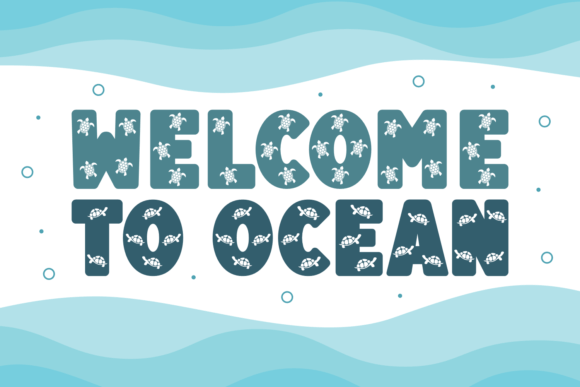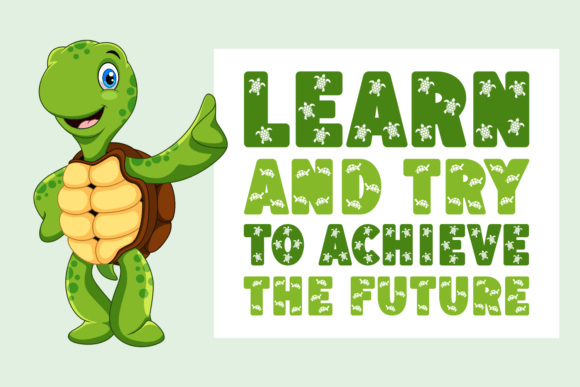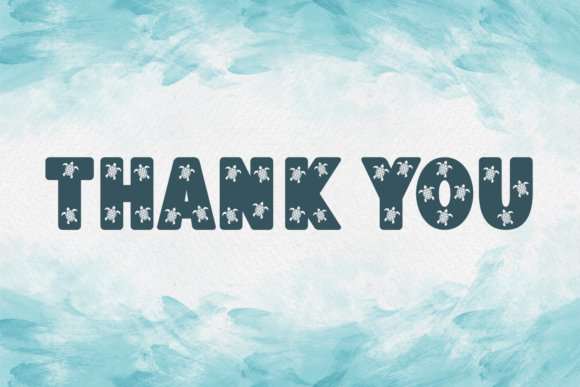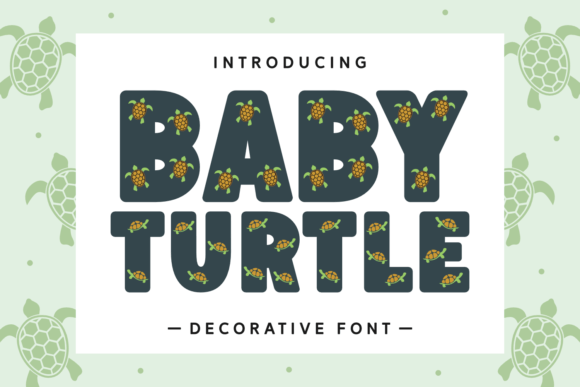
Introduction to Baby Turtle Font
Baby Turtle is a fun and adorable decorative font with a turtle motive.
This cute font will be loved by children and adults alike Use it to create lovely designs related to turtles – posters, brochures, souvenirs, t-shirts, and many more.
Key Features of Baby Turtle Font
Why Choose Baby Turtle Font?
Baby Turtle Font offers exceptional quality and versatility, making it a valuable addition to your design toolkit. Whether you’re creating for personal projects or commercial use, Baby Turtle Font delivers professional results.